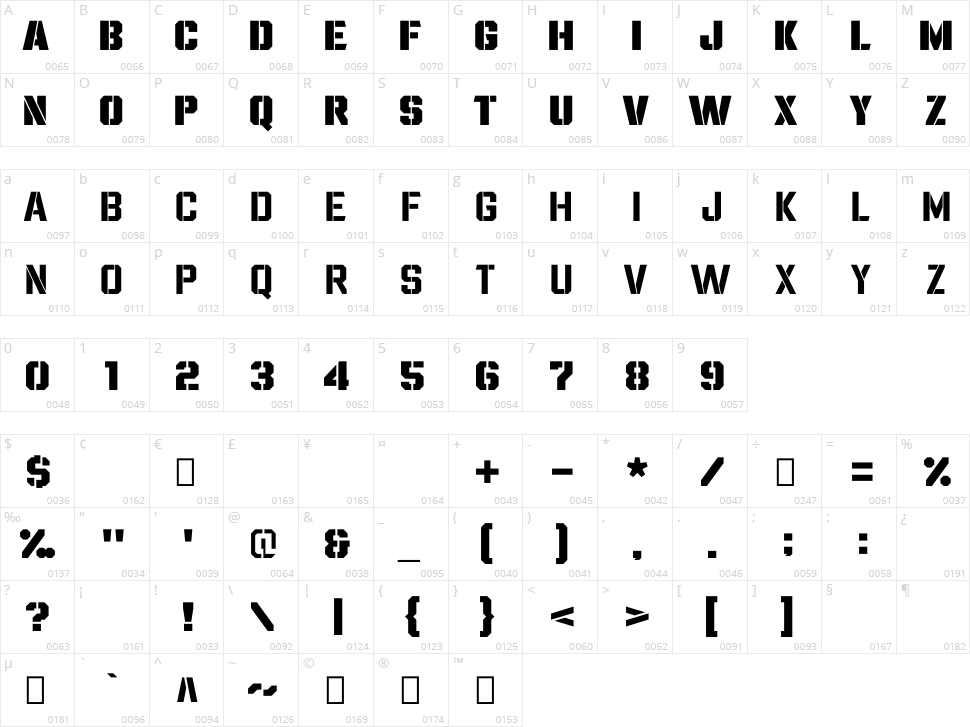
Call To Arms
Call to arms is the best stencil for military publicity or adventure-related activities. It can also be used as markings in walls or equipment. This is the font of freedom.